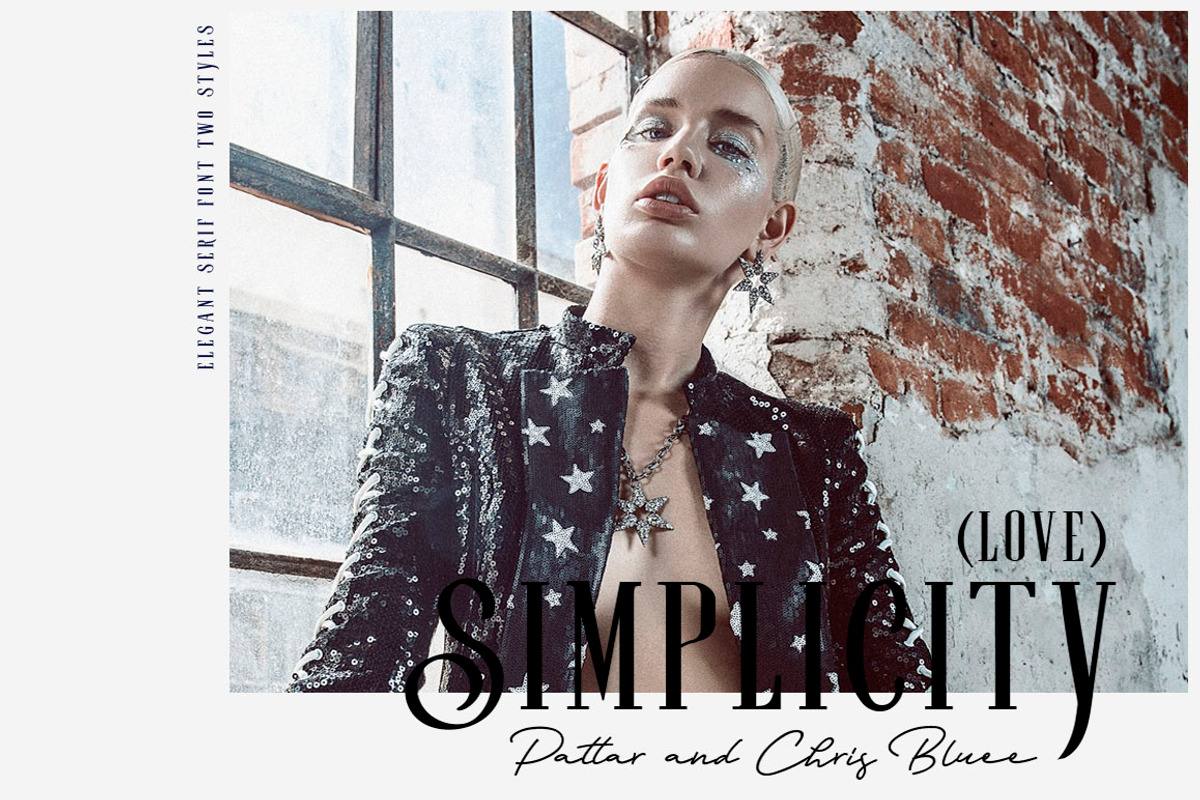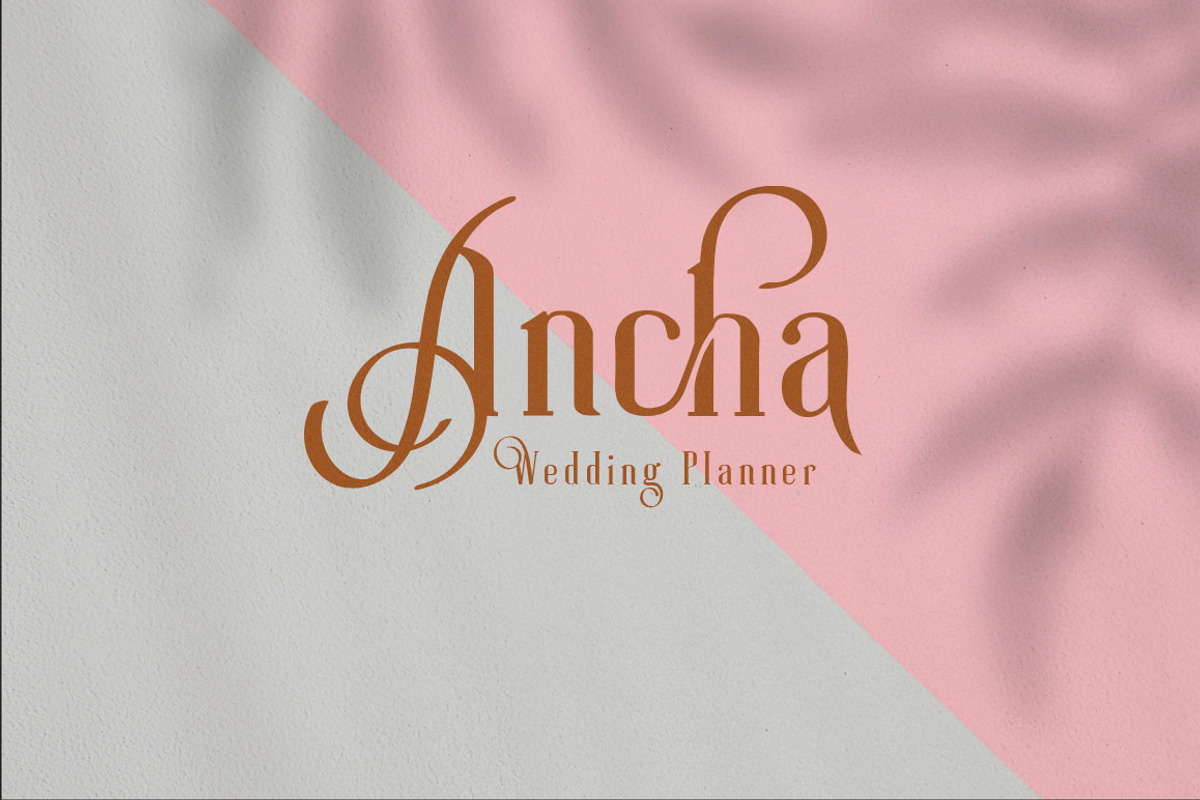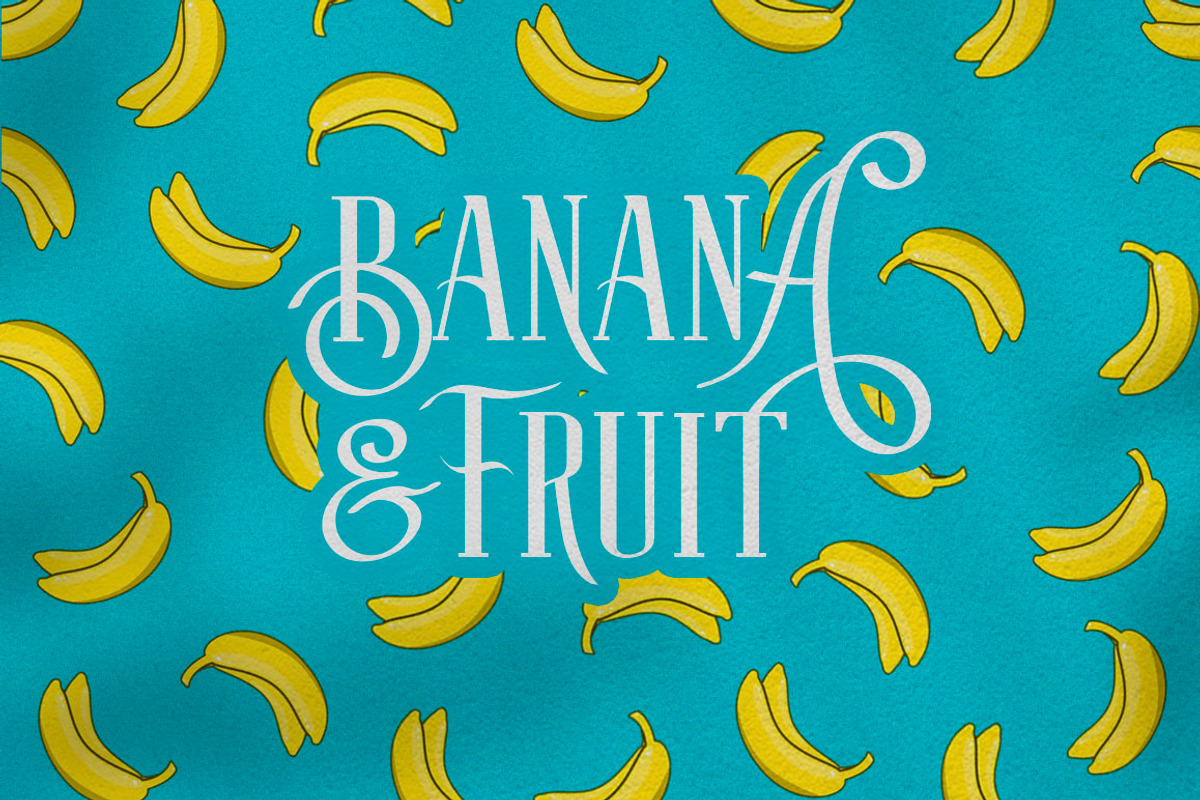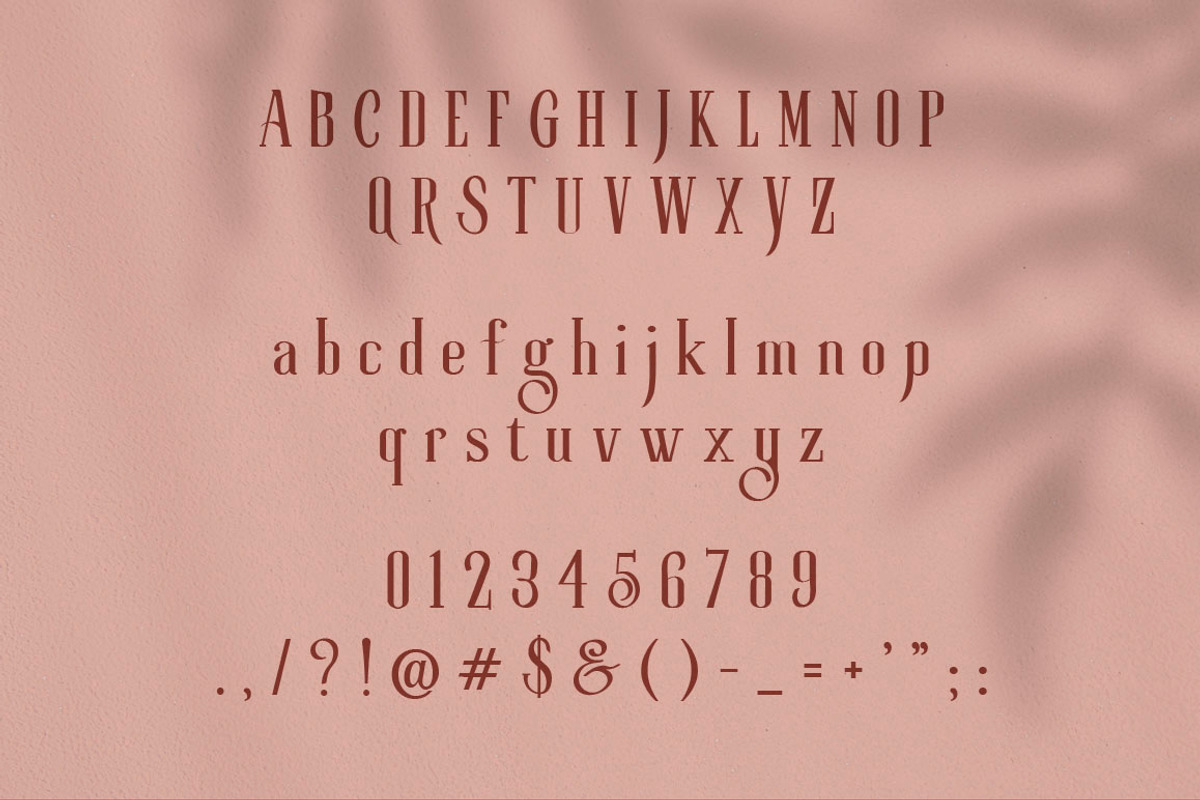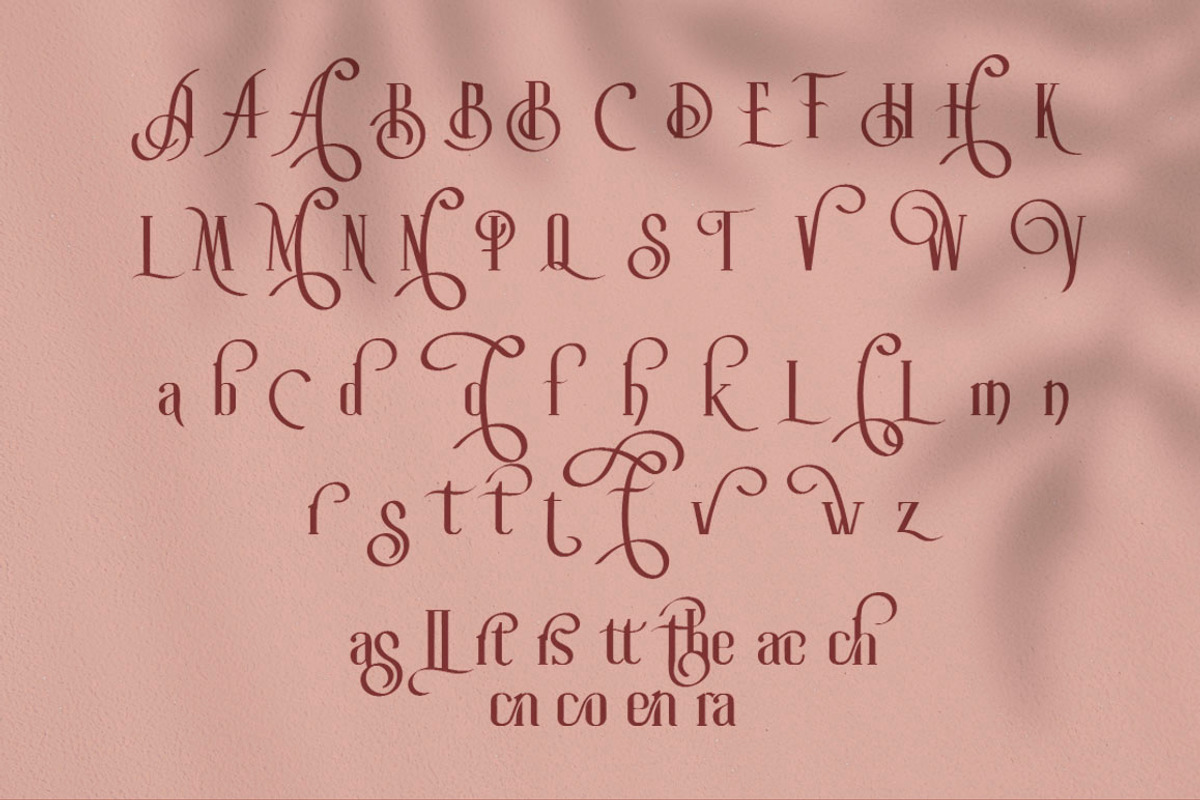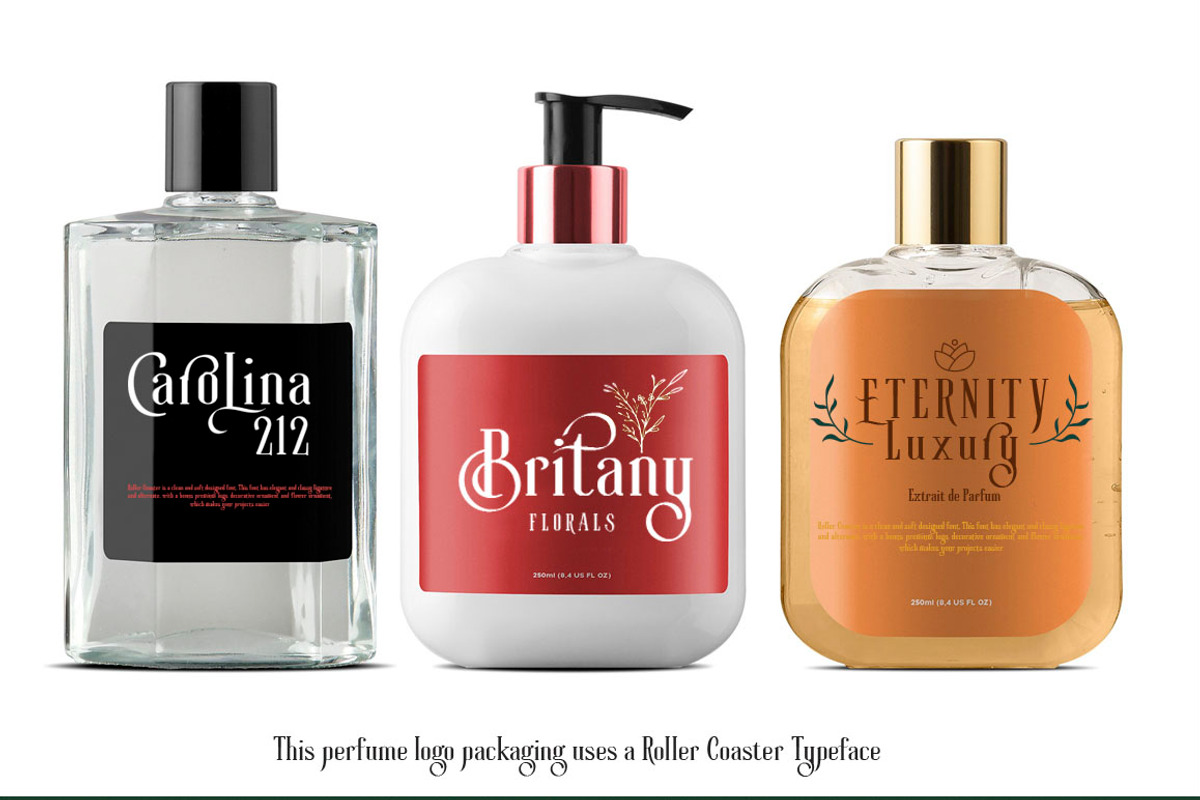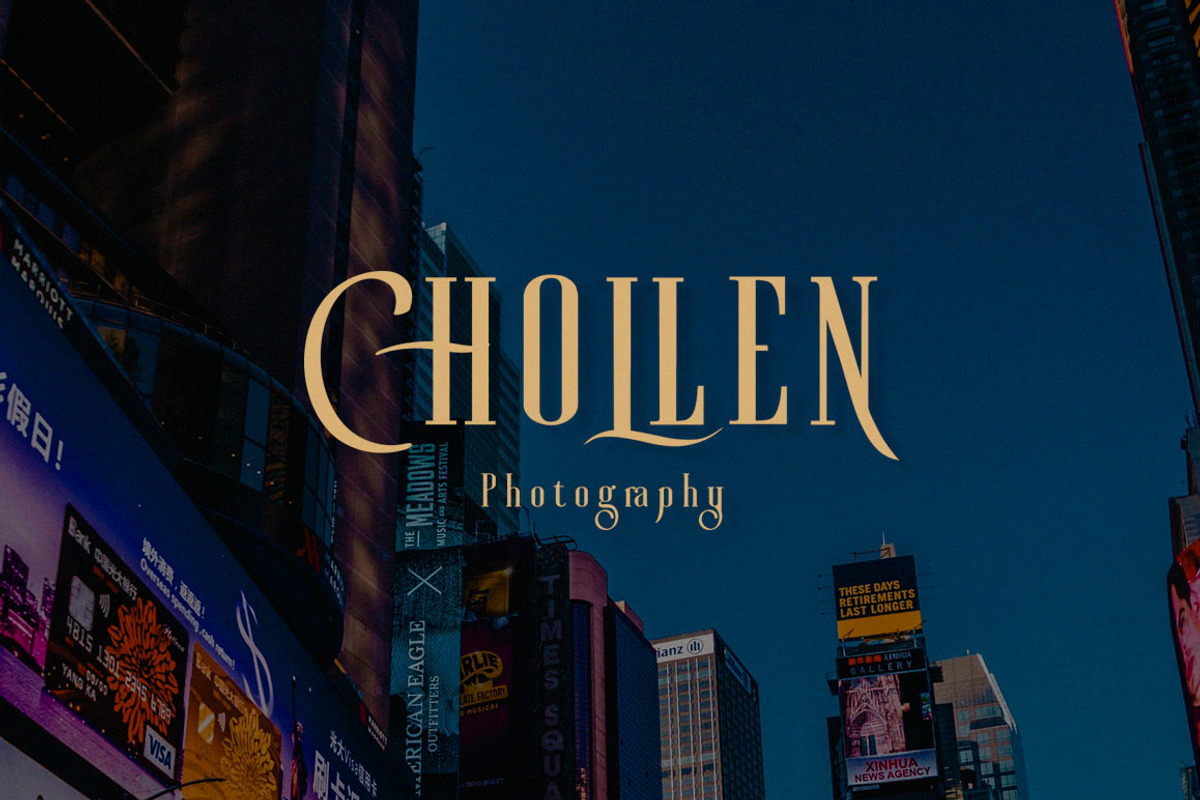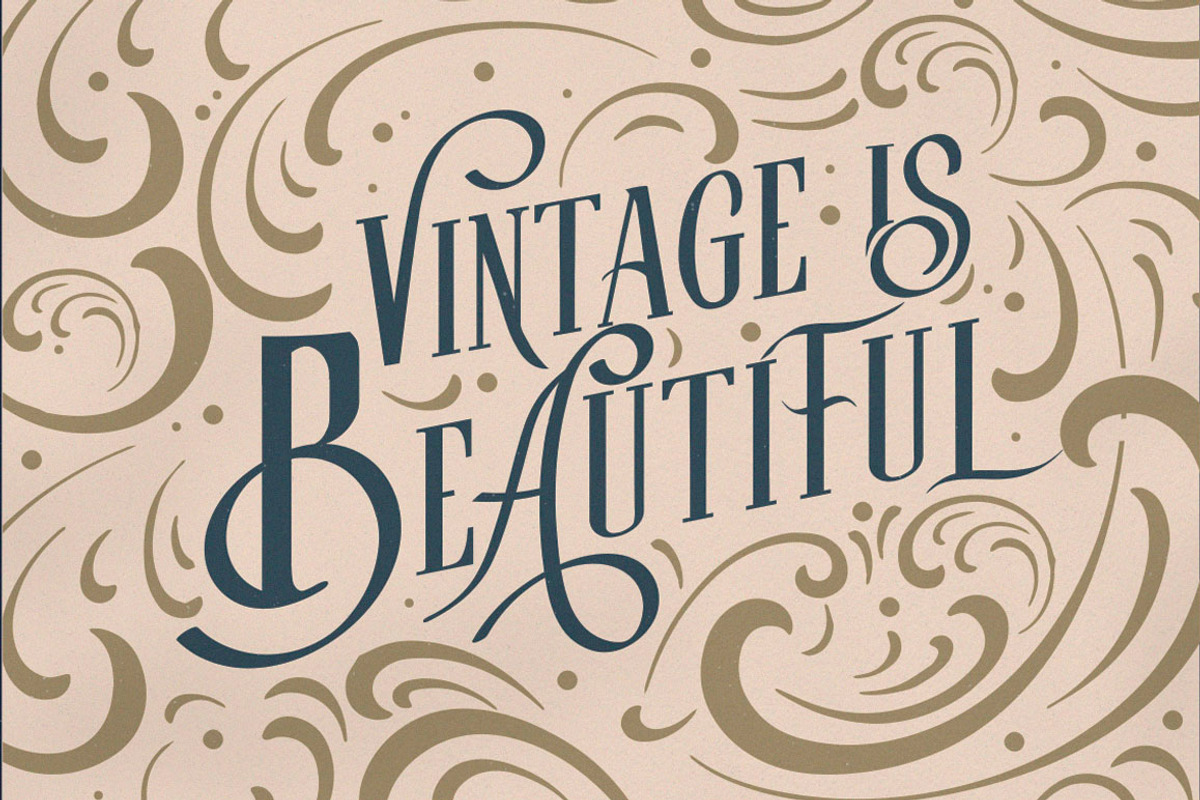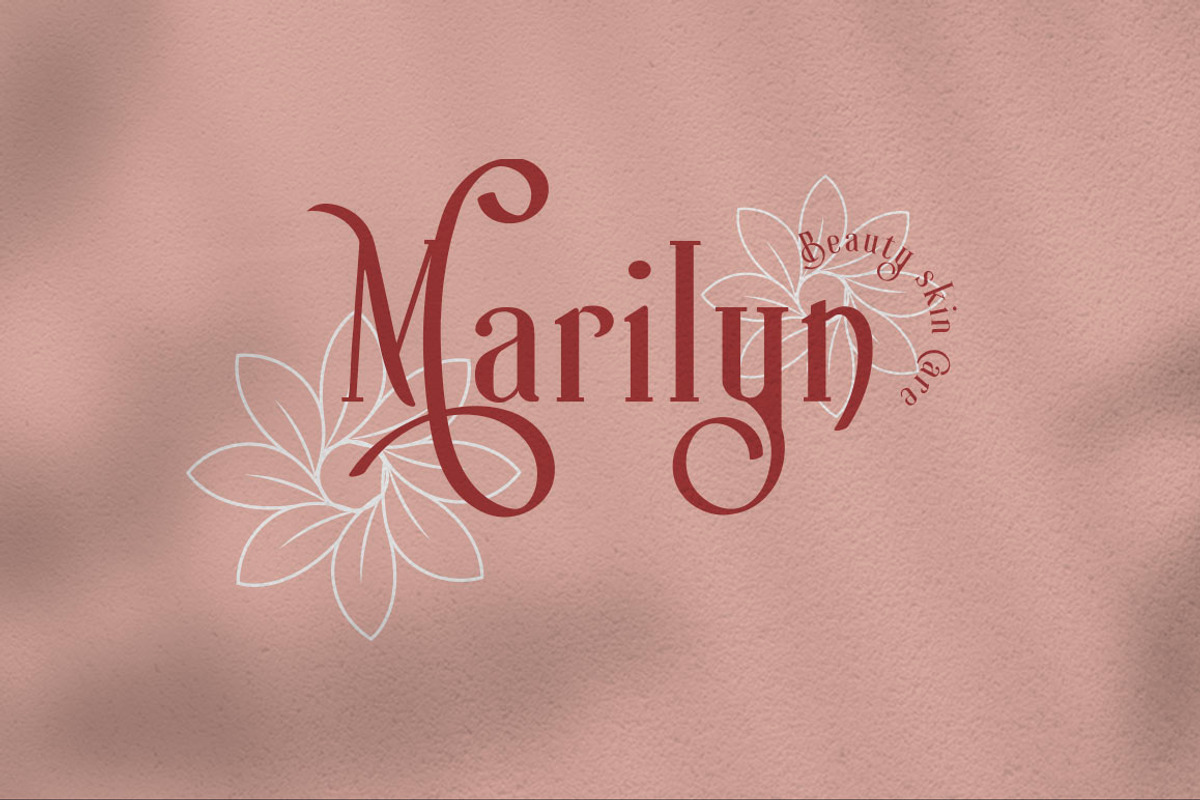
Roller Coaster Serif (Bonus)
Roller Coaster Elegant Serif Font!
Roller Coaster is a serif that is decorative, vintage and antique and elegant. The neat and beautiful font shape makes this font easy to remember as a modern font.
Roller Coaster making it a versatile type that can be used in various projects. No matter what type of project you are working on, this font can help you simplify your work.
This font is very modern and minimalist way.This font is multi functional, perfect for logo design, magazine, poster, packaging, christmas gift, wedding, or elegant invitation card, layout, logo, content, instagram, bussines card, Print Ads, Digital Ads, Promotional Products.
With an extra bonus premium logo, floral ornament that makes your project more luxurious and beautiful and easier.
Stylistic Alternates: change any letters, open the glyphs panel and you can choose the letter as needed.
Contextual Alternate: Automatically updates all the first & last letters and adds a complete look that is unique to any word. Imitating calligraphic styles and true font signatures when the last letter is always slightly different from the others.
Standard Ligatures :If you have opentype software, 'Discretionary Ligatures' can be turned on for the Script fonts, which will automatically switch standard letter pairs into the provided ligatures.